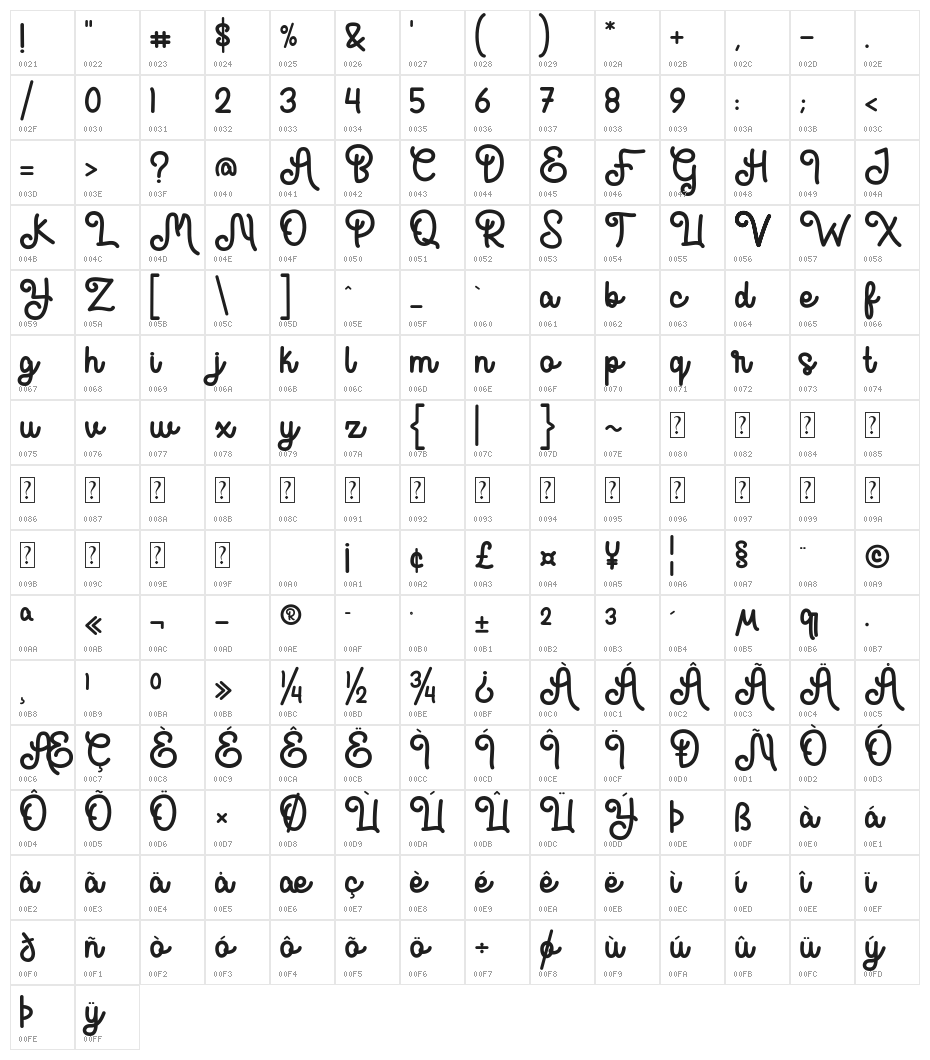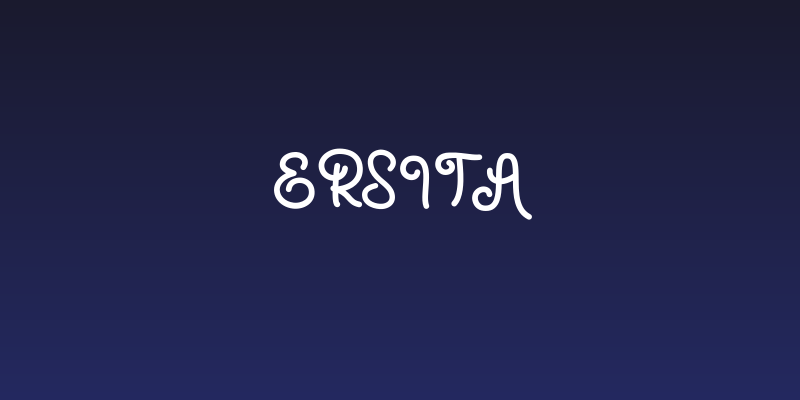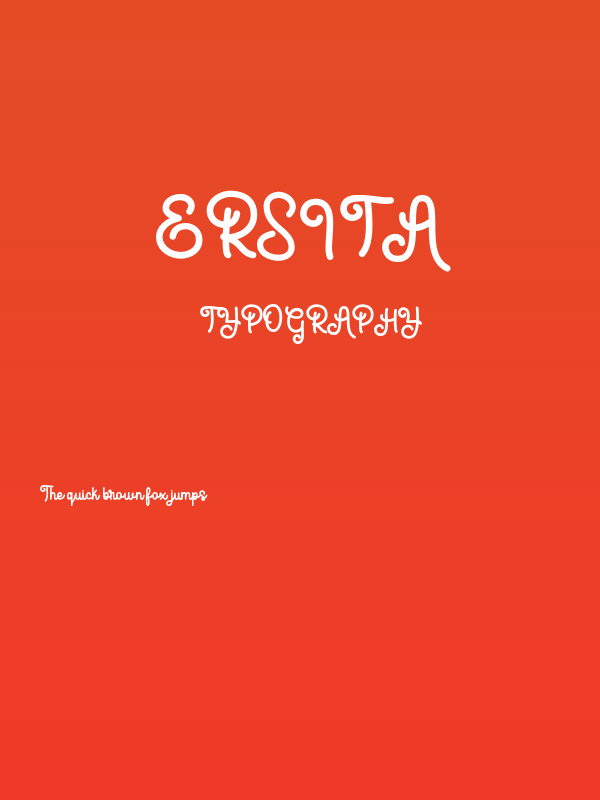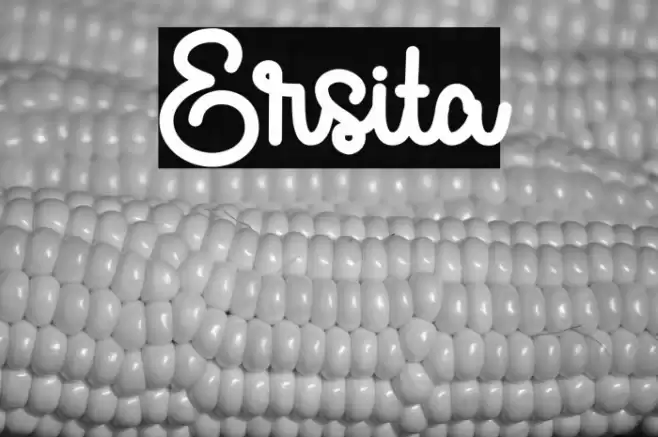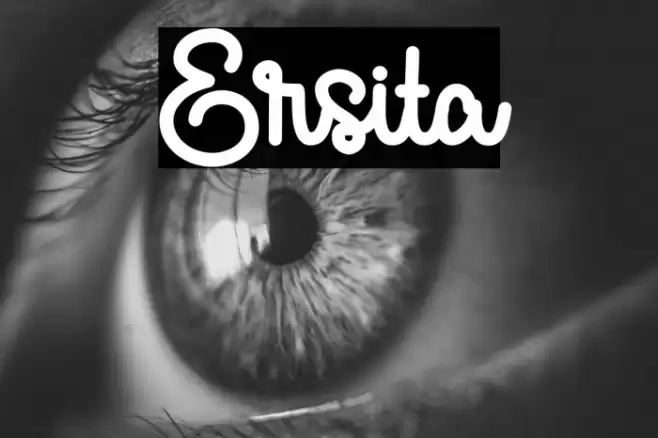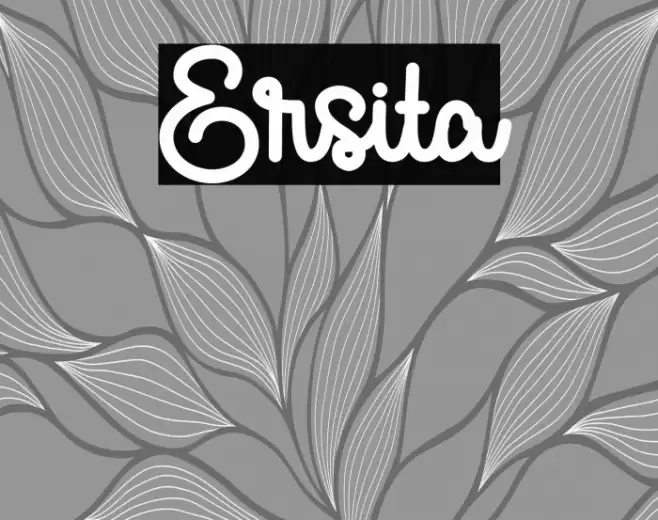
Ersita Font
This font features a playful and whimsical script style, characterized by its smooth, flowing lines and rounded edges. The uppercase letters exhibit a consistent looped design, giving them a lively and dynamic appearance. The lowercase letters maintain a similar fluidity, with some characters extending slightly below the baseline, adding to the font's charm. The numerals are bold and clear, ensuring readability while maintaining the overall playful aesthetic. Special characters are well-integrated, matching the font's curvy and friendly style. This font is ideal for projects that require a touch of fun and creativity.